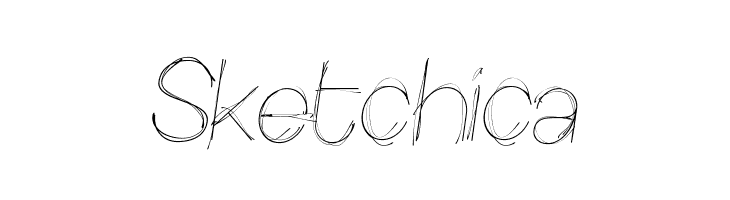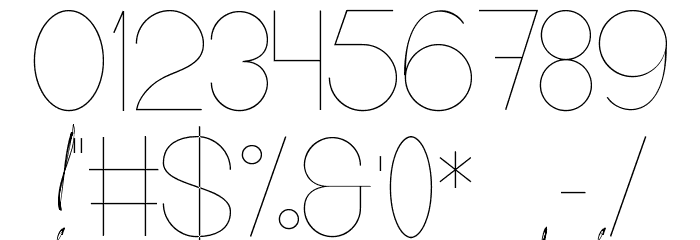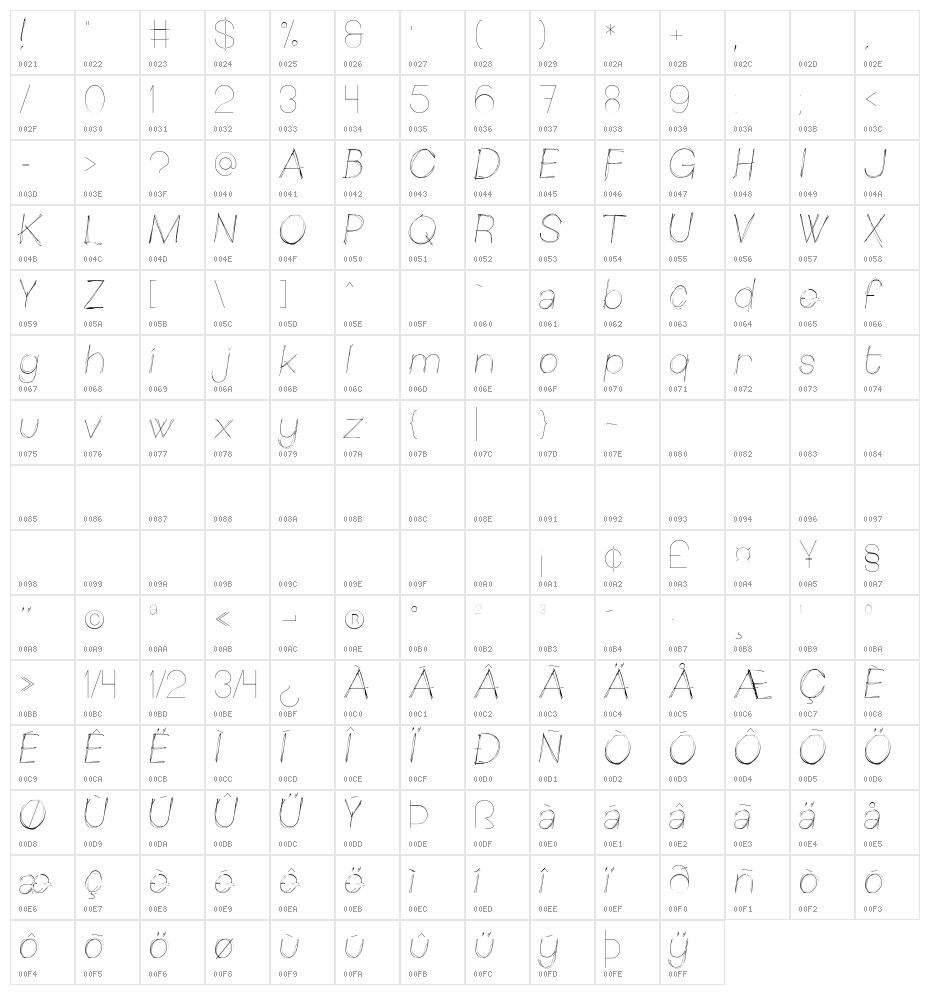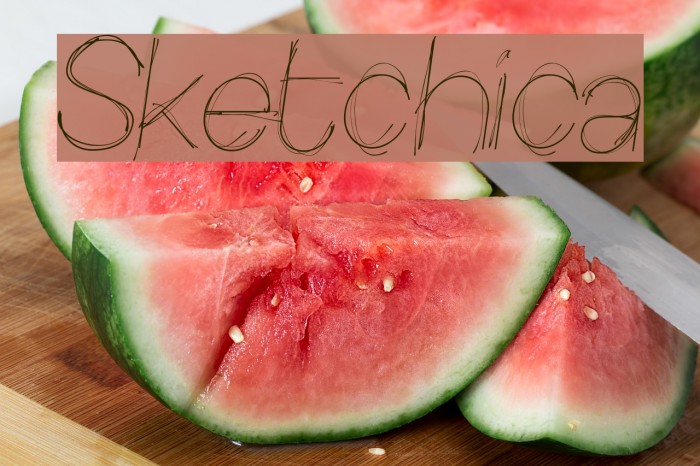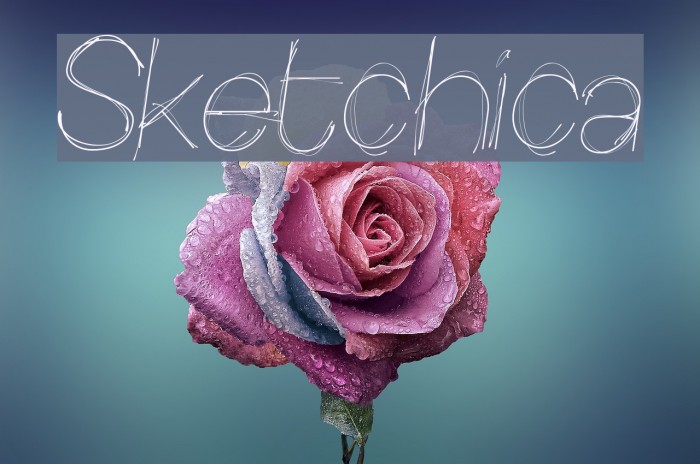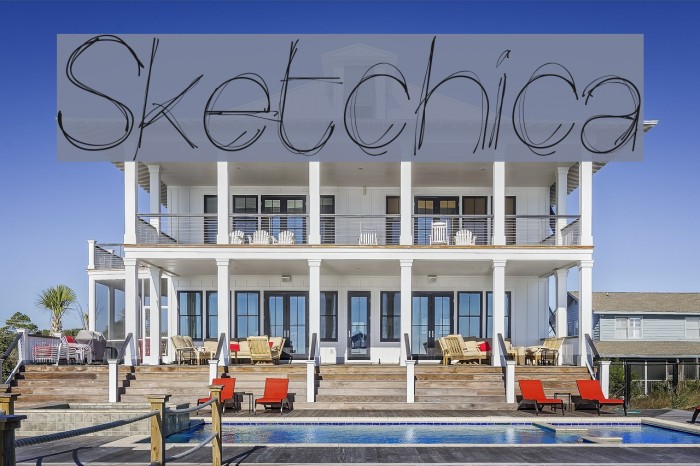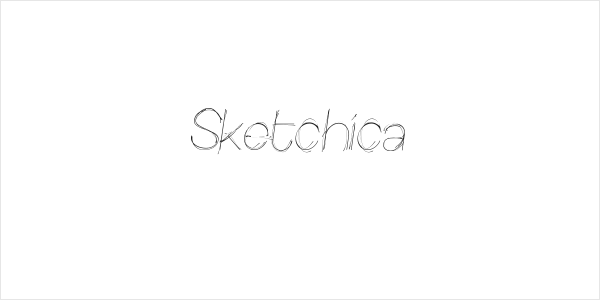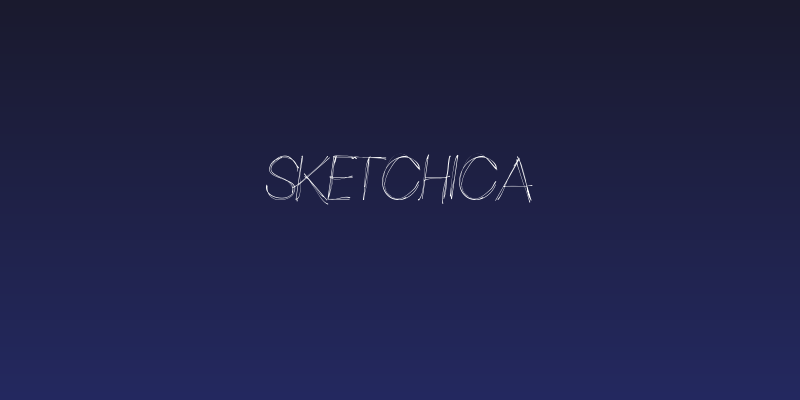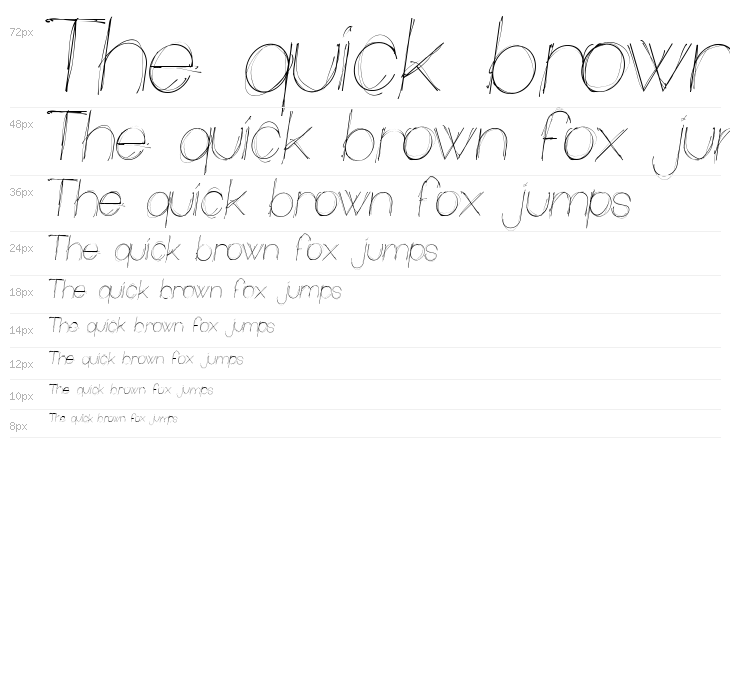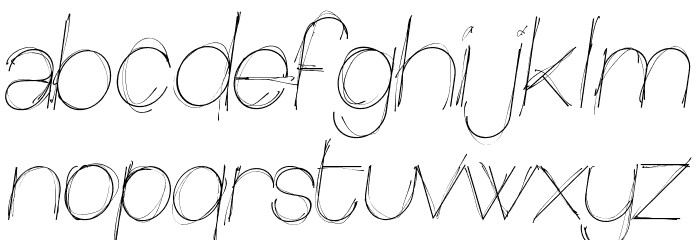
Sketchica Font
Sketchica Description
This font features a unique, hand-drawn aesthetic with a sketch-like quality. The characters are composed of thin, uneven strokes that give it a casual and artistic feel. The uppercase and lowercase letters maintain a consistent style, with slight variations in line thickness that add to the hand-crafted appearance. The numerals and special characters follow the same design principles, ensuring a cohesive look across all elements. This font's playful and informal nature makes it suitable for creative projects that require a personal touch.
Use CaseLogos, Posters, Creative projects
Proposed ProjectsIdeal for creative projects such as art posters, children's book illustrations, or branding for artistic ventures.